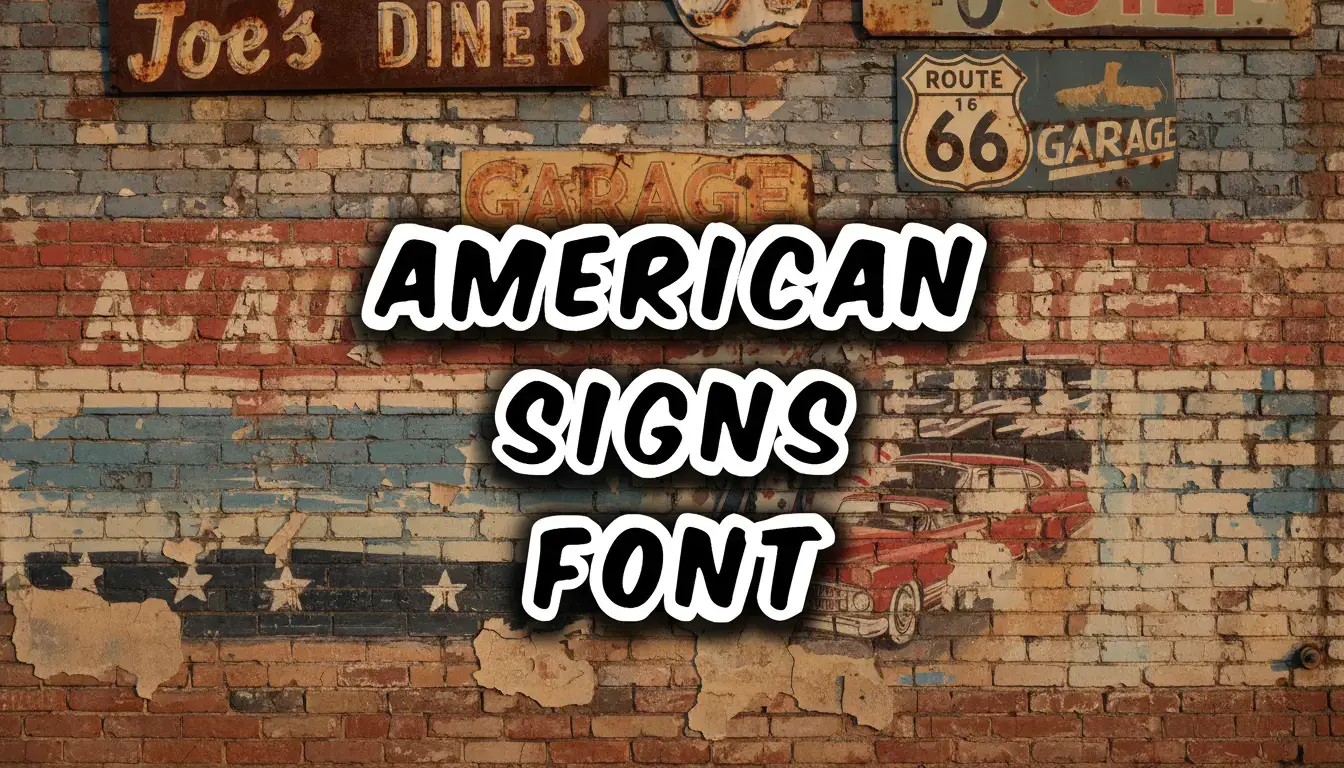
American Signs Font
American Signs is a retro, handwritten script font designed by Woodcutter Manero (released under Woodcutter Laboratory, Spain). It features an old-school, nostalgic aesthetic that captures the look of classic hand-lettered signage and vintage American branding.
American Signs is an old school font created by Woodcutter Manero. Its letters look like they came off an old sign or a vintage product label. You can download it for free and test it with your own words in the preview above.
What You Can Type With American Signs
With complete upper and lowercase letters and all ten digits, American Signs is ready for real wording, not just a single headline. Common punctuation such as &, !, ? and @ is included as well. It also has the accented letters you need for Spanish, French, German, Portuguese and Italian.
Where American Signs Works Best
Think of American Signs for vintage signs, barber shop logos and retro labels. Put it on an off-white or kraft-paper background and it instantly looks older.
Does American Signs support accented letters?
Yes. American Signs includes the accented letters needed for Spanish, French, German, Portuguese and Italian, so it works for more than just English.
What fonts pair well with American Signs?
It pairs nicely with a classic serif or a condensed sans serif for the supporting lines.